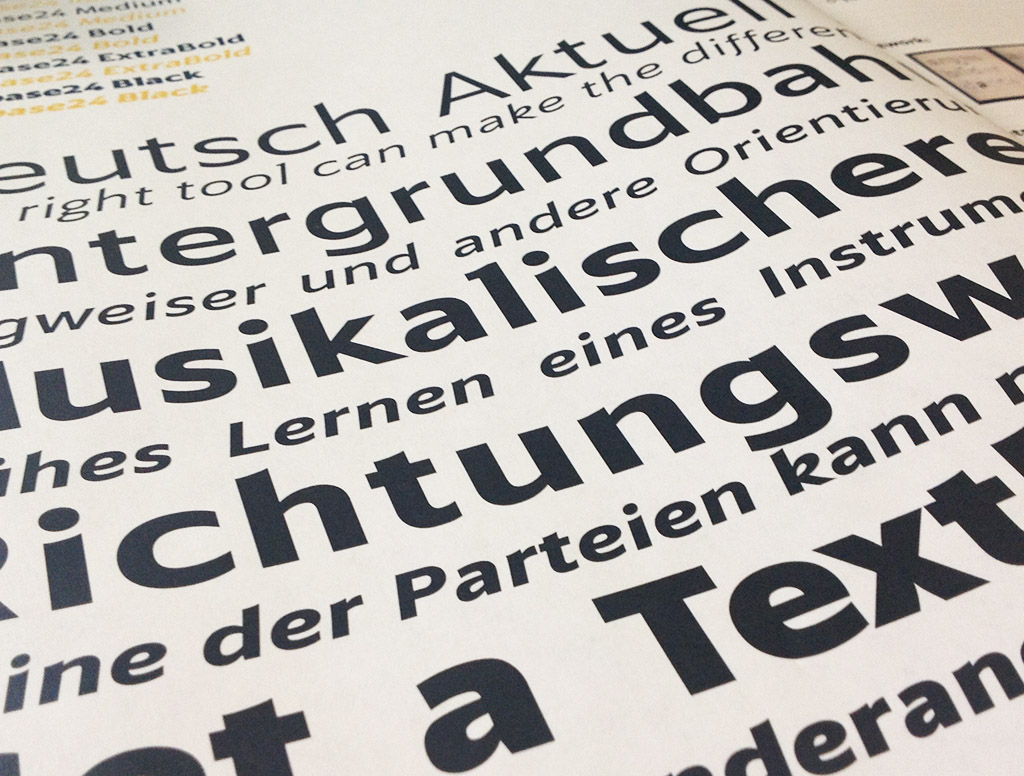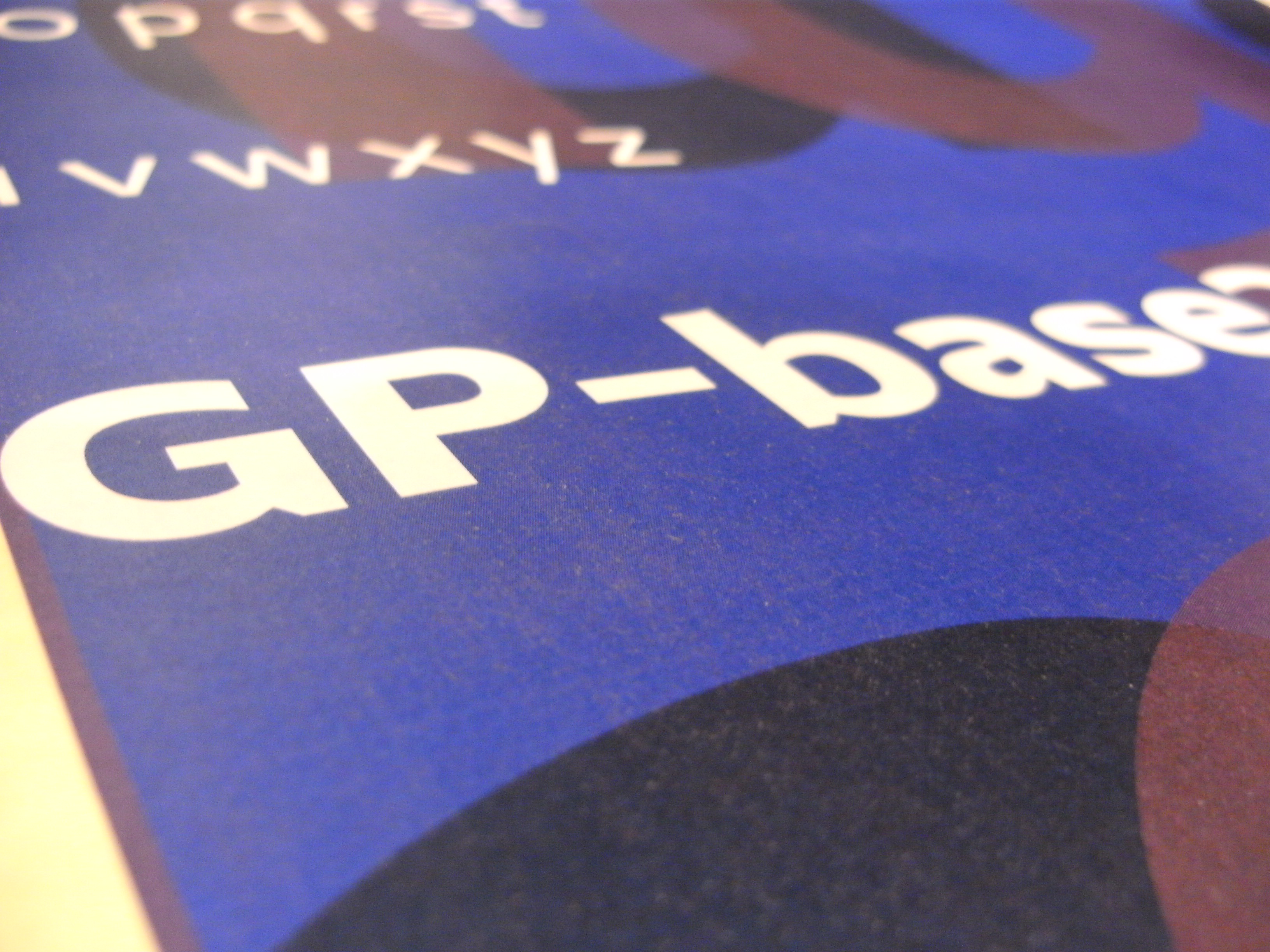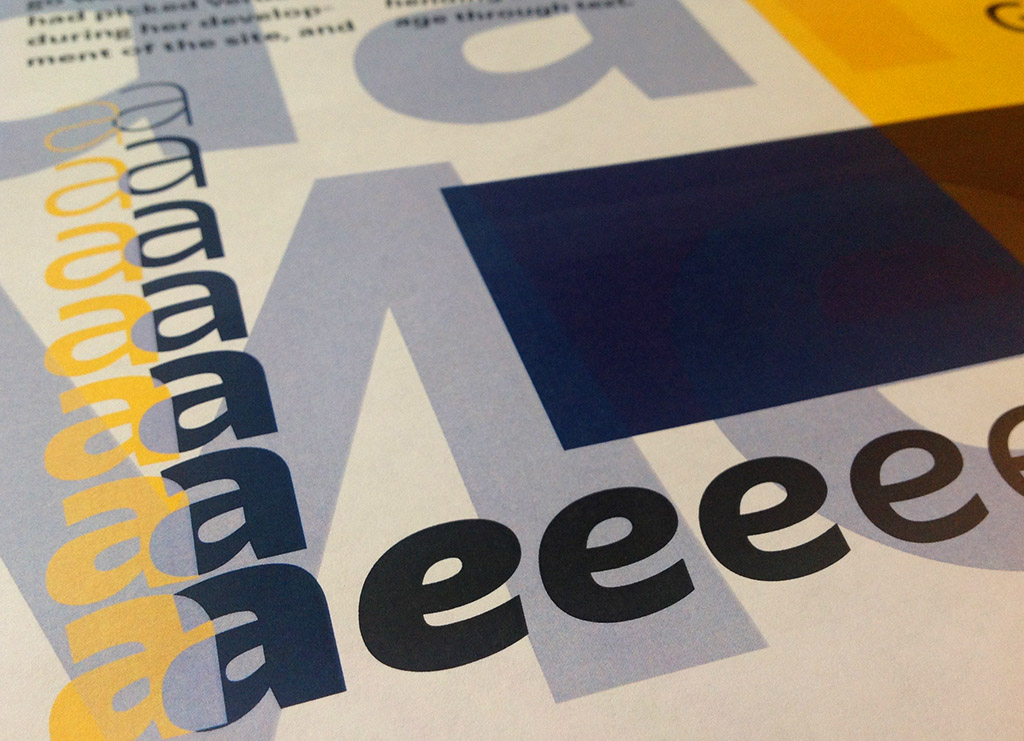
Moritz Sans
Typeface Created December 2015, last updated 01 September 2021 Moritz Sans is a modern Grotesk originally conceptualized and developed as a web font intended to be legible in even the smallest sizes. The typeface was born out of the idea of making a Sans based on the beautiful Serif Palatino, drawn up from scratch and infused with my own ideas.
The first version, called GP-base24, has since been expanded, to seven weights, and includes a proper italic version as well! (read more here)
SVG specimen of Moritz Sans
Picture specimen of GP-base24, the predecessor to Moritz Sans
Since Moritz Sans is the typeface of the Learn German website, we needed to not only make the typeface very legible: Wide, with lots of room, generous spacing and a larger x-height - we also needed to make sure the individual letter shapes are easily distinguished, and not alike. Even though they all face in different directions, a b is easily mistaken as a p, b and q. An l cannot look like a 1 or in I, an 8 like a B or an ß, and rn may not run together into an m. To achieve this, each letter has - subtly, but noticeably - their own distinct and unique shape and forms.
Picture specimen of GP-Base24, the predecessor to Moritz Sans